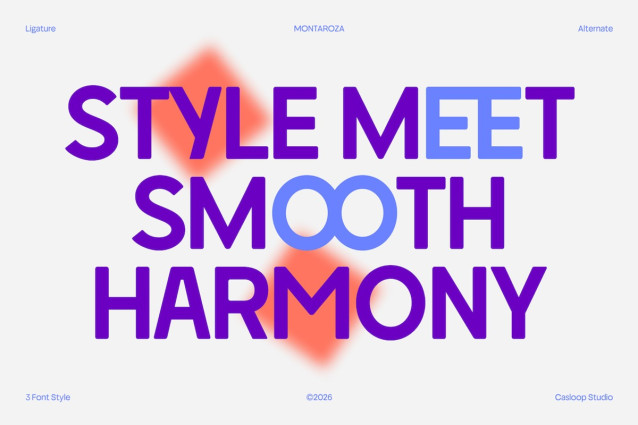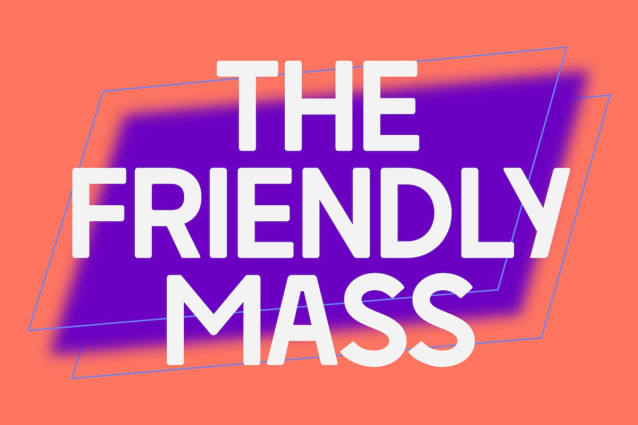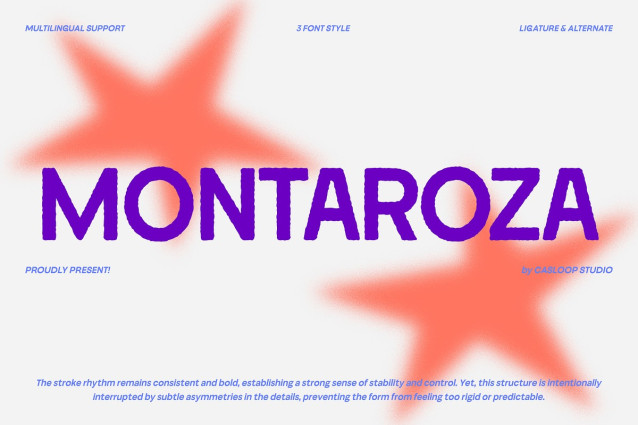
Montaroza – Rough Texture Geometric Font
Montaroza is a rough texture display font that blends geometric precision with modern irregularity, creating a bold and confident visual identity. Its key characters O, M, E, A, R, and Q are built on solid geometric foundations with clean base forms and consistent, heavy stroke rhythm that establish a strong and stable structure.
This balance is intentionally disrupted by subtle asymmetrical details, adding a contemporary edge that feels expressive without losing control. The result is a compact, striking silhouette that performs exceptionally well in headlines, logos, packaging, and branding projects that demand a modern, textured, and impactful presence. Recommended pairing with: Montserrat, Space Grotesk, Poppins, Helvetica Neue, Futura, Gotham.